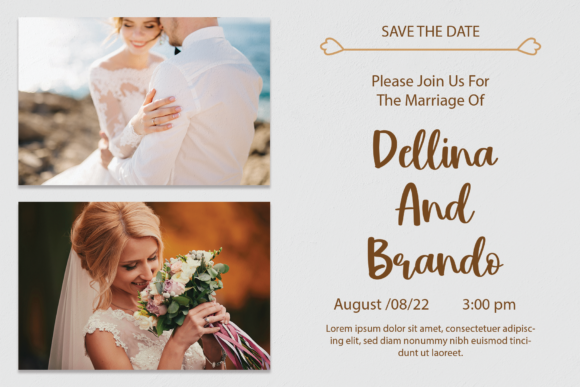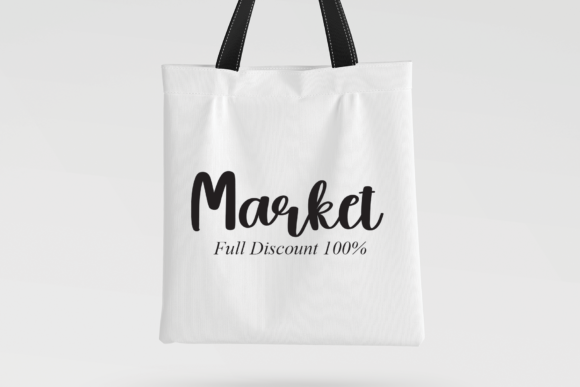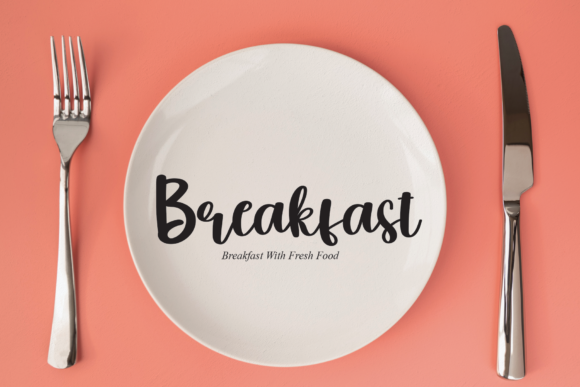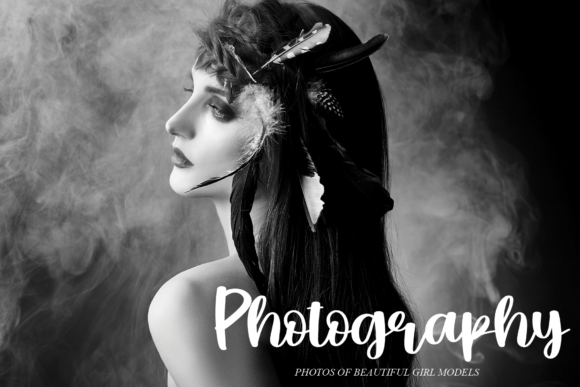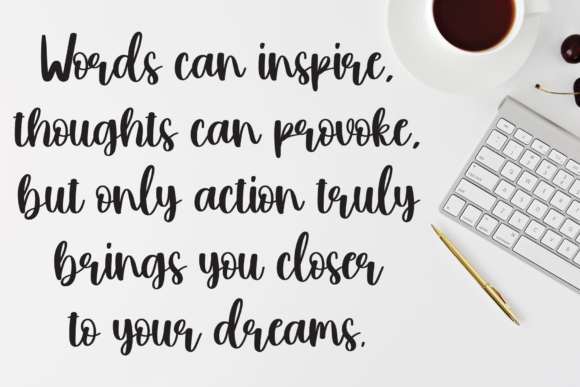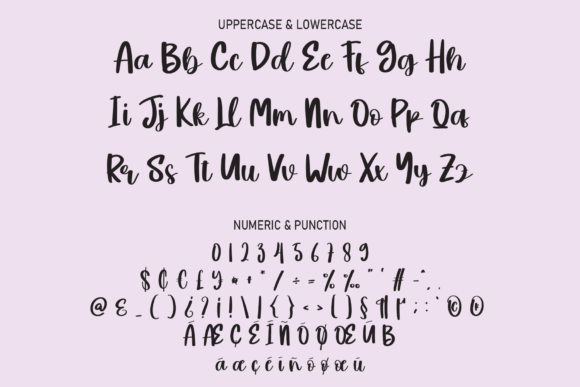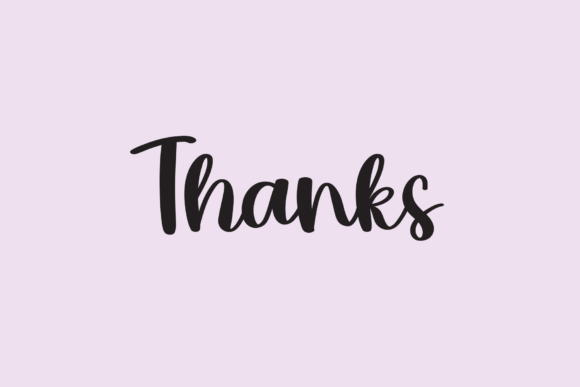
Bruney Font
About Bruney Font
Bruney is a beautiful and light handwritten font with a unique feel and a stunning impact. It will add a luxury spark to any design project that you wish to create!